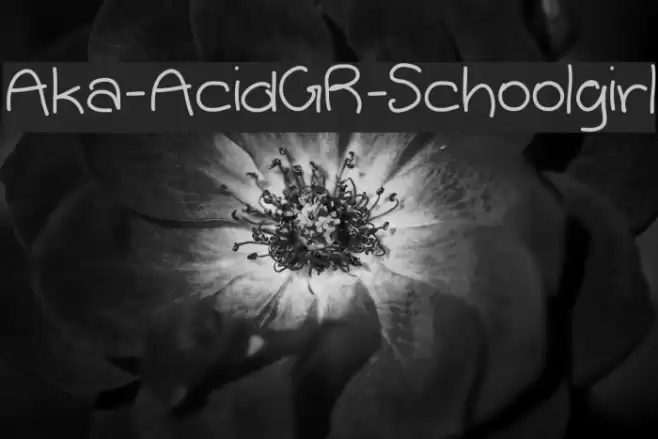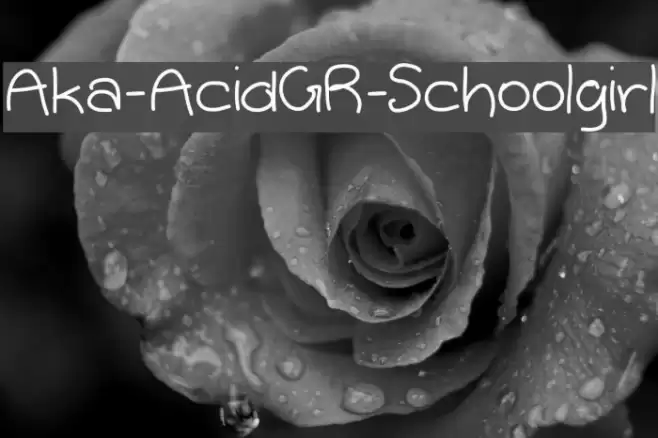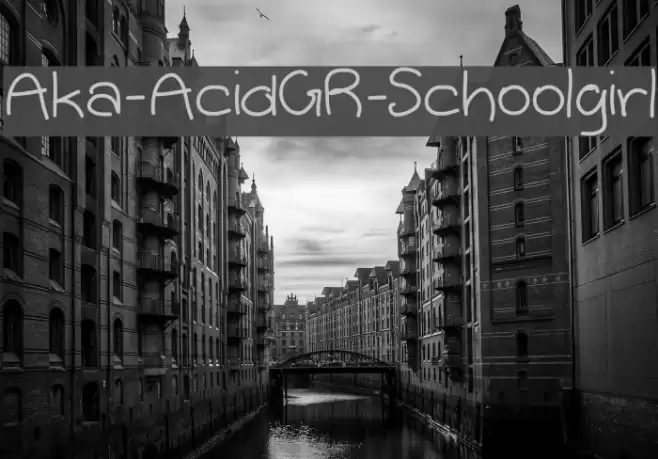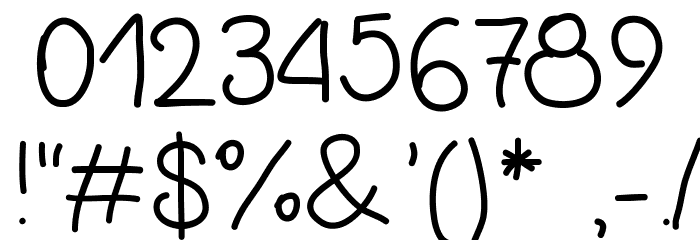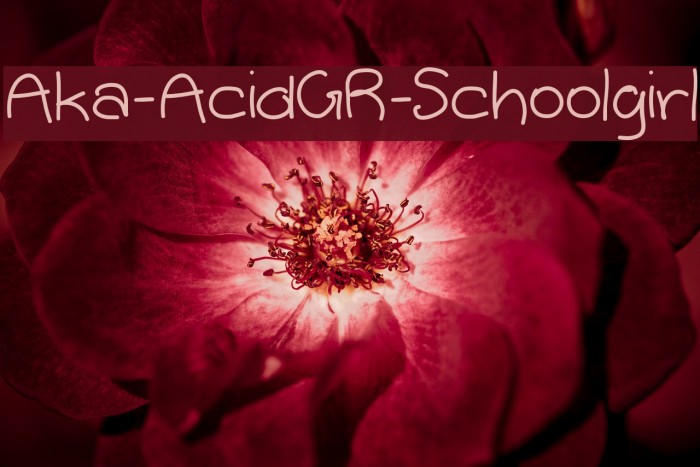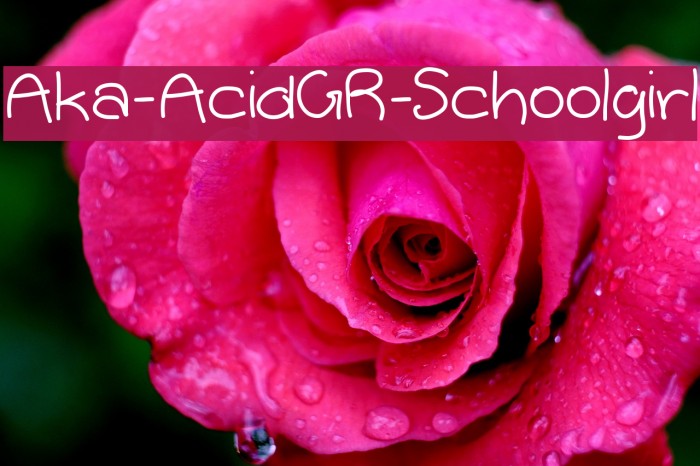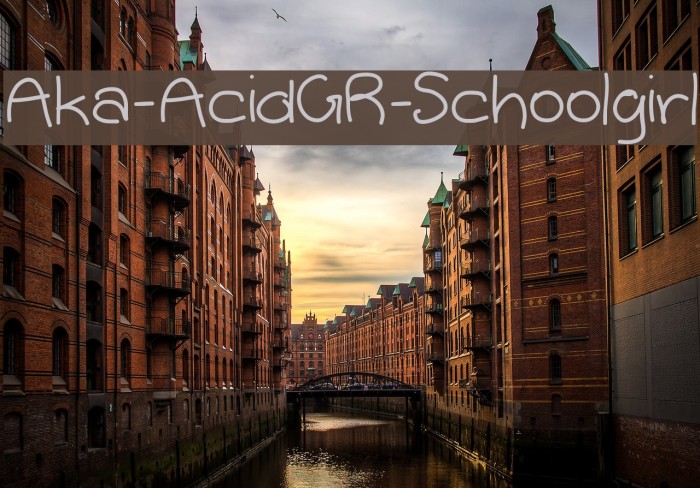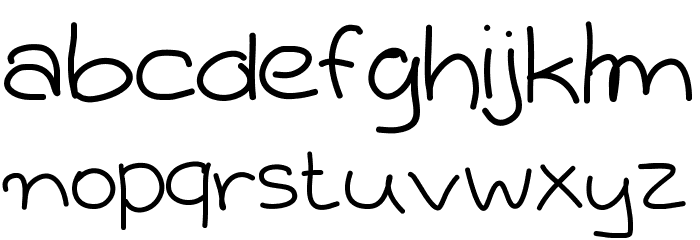
Aka-AcidGR-Schoolgirl Font
Aka-AcidGR-Schoolgirl Description
This playful and whimsical font features a handwritten style that exudes a sense of fun and creativity. The letters are rounded and slightly irregular, giving them a casual and friendly appearance. The uppercase and lowercase characters maintain a consistent flow, while the numerals and special characters complement the overall style. The font's design is reminiscent of a schoolgirl's handwriting, making it ideal for projects that require a youthful and informal touch. Its legibility and charm make it suitable for a variety of creative applications.
A playful, handwritten font with a casual and friendly style from Uncategorized fonts.
- Proposed Projects: Ideal for children's books, educational materials, playful branding, and creative invitations.
- Overall Style: Playful
- Use Case: Headlines, Logos, Invitations